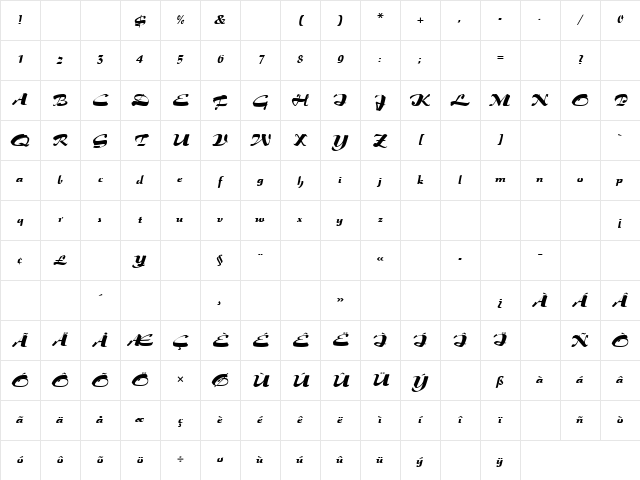
Salto Regular
Salto Family
Design Context for Salto
Salto is a composed and adaptable typeface that performs quietly and consistently across a wide range of design contexts.